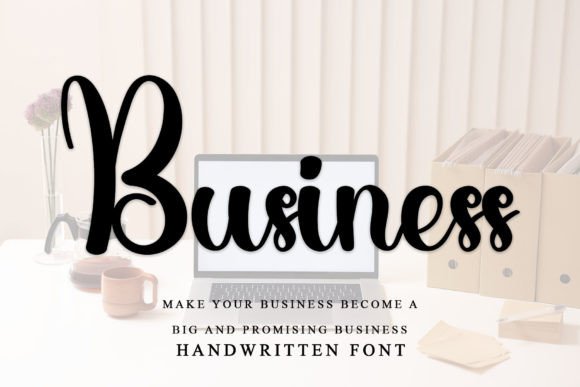
The Ultimate Guide to Business Font: Elevate Your Designs with Elegance
I’ll never forget the time I was working on a wedding invitation project, and my client asked me to create a custom design that exuded elegance and sophistication. As I scrolled through my font library, I realized I needed something special – a font that would make the invitation stand out and reflect the couple’s refined taste. That’s when I stumbled upon Business Font, a neat and stylish handwritten font that instantly captured my attention. In this article, I’ll share my experience with Business Font, its features, and how to make the most of it in your designs.
An Honest Review of Business Font
So, what makes Business Font so special? Let’s dive into the good stuff! 😊
- ✨ Distinct and timeless style: Business Font boasts a unique, elegant look that’s perfect for a wide range of designs, from wedding invitations to logos and nameplates.
- ✅ Elegant and refined: This font is crafted with a touch of sophistication, making it ideal for projects that require a high level of professionalism.
- 🌈 Versatile: Business Font can be used for various design projects, including templates, crafts, birthday cards, and more.
Now, let’s talk about a few quirks ⚠️:
- 🤔 Limited availability of certain characters: Some users have reported that certain characters, like ligatures, are not readily available. However, this can be easily addressed by exploring the font’s OpenType features.
- ⚠️ May require adjustment for large text sizes: As with any handwritten font, Business Font may require some tweaking when used in large text sizes to maintain its elegance.
Exploring Business Font’s OpenType Features
Business Font offers a range of OpenType features that can enhance your designs. Here are a few tips on how to access and use them:
- Stylistic alternates: Swap out characters for alternative glyphs to add more visual interest to your text.
- Ligatures: Combine characters to create unique ligatures that add a touch of elegance to your design.
- Glyphs: Access a range of glyphs, including ornaments and swashes, to add more personality to your text.
The Story Behind Business Font
Business Font was designed with the goal of creating a unique, elegant handwritten font that would cater to the needs of designers and crafters. The font’s creator aimed to craft a font that would exude sophistication and refinement, making it perfect for a wide range of designs.
| Font Name | Business Font |
| What type of designs is Business Font best suited for? | Business Font is perfect for a wide range of designs, including wedding invitations, logos, nameplates, crafts, birthday cards, and more. |
| Is Business Font suitable for large text sizes? | While Business Font can be used in large text sizes, it may require some tweaking to maintain its elegance. |